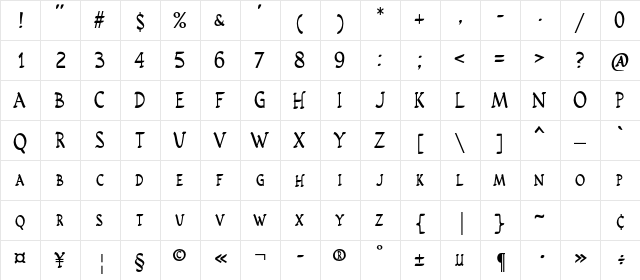
RusticusStd Regular
| Foundry | Denis A Serikov |
| Designer | Denis A Serikov |
Design Context for RusticusStd Typeface
RusticusStd is a composed and adaptable typeface that performs quietly and consistently across a wide range of design contexts.